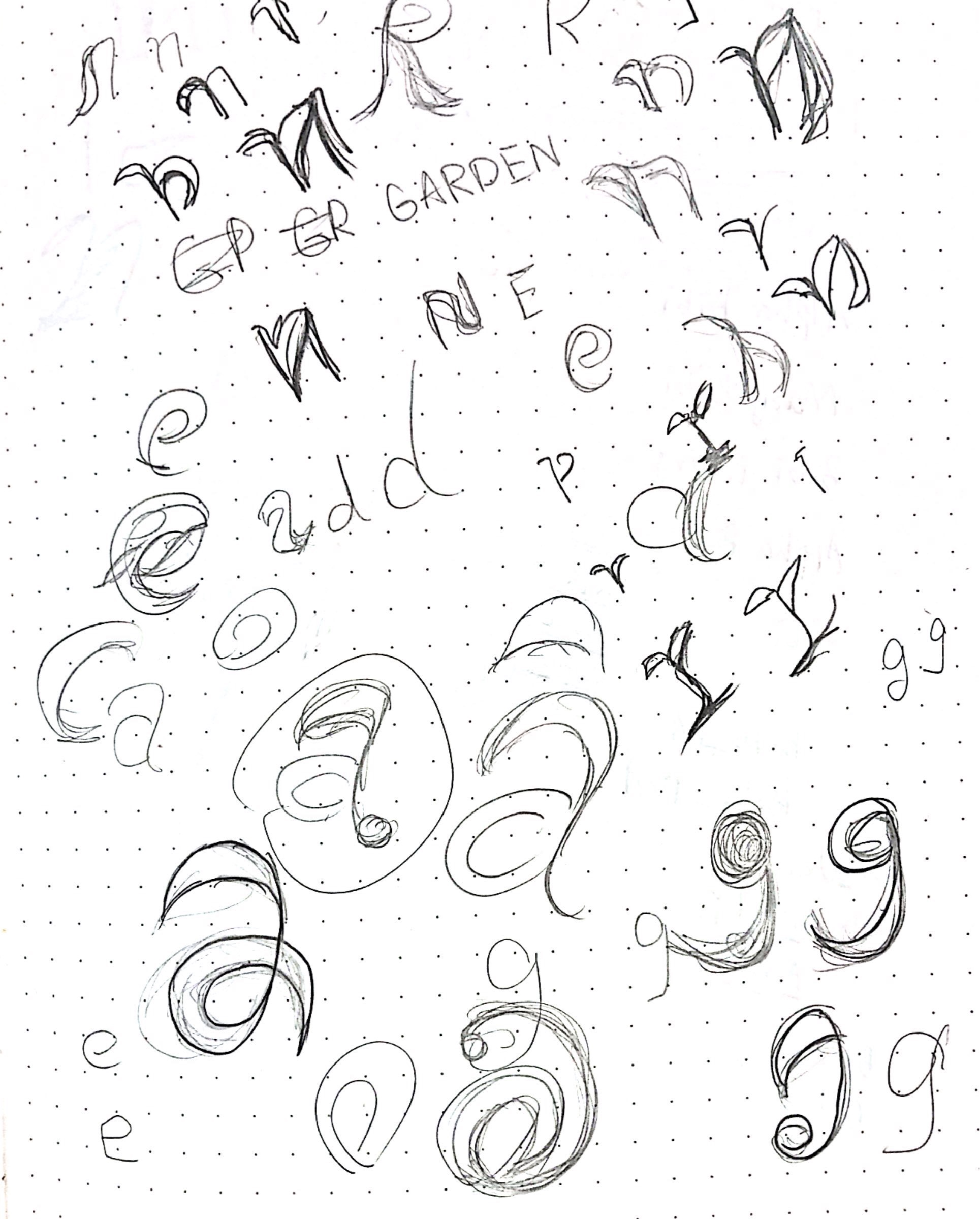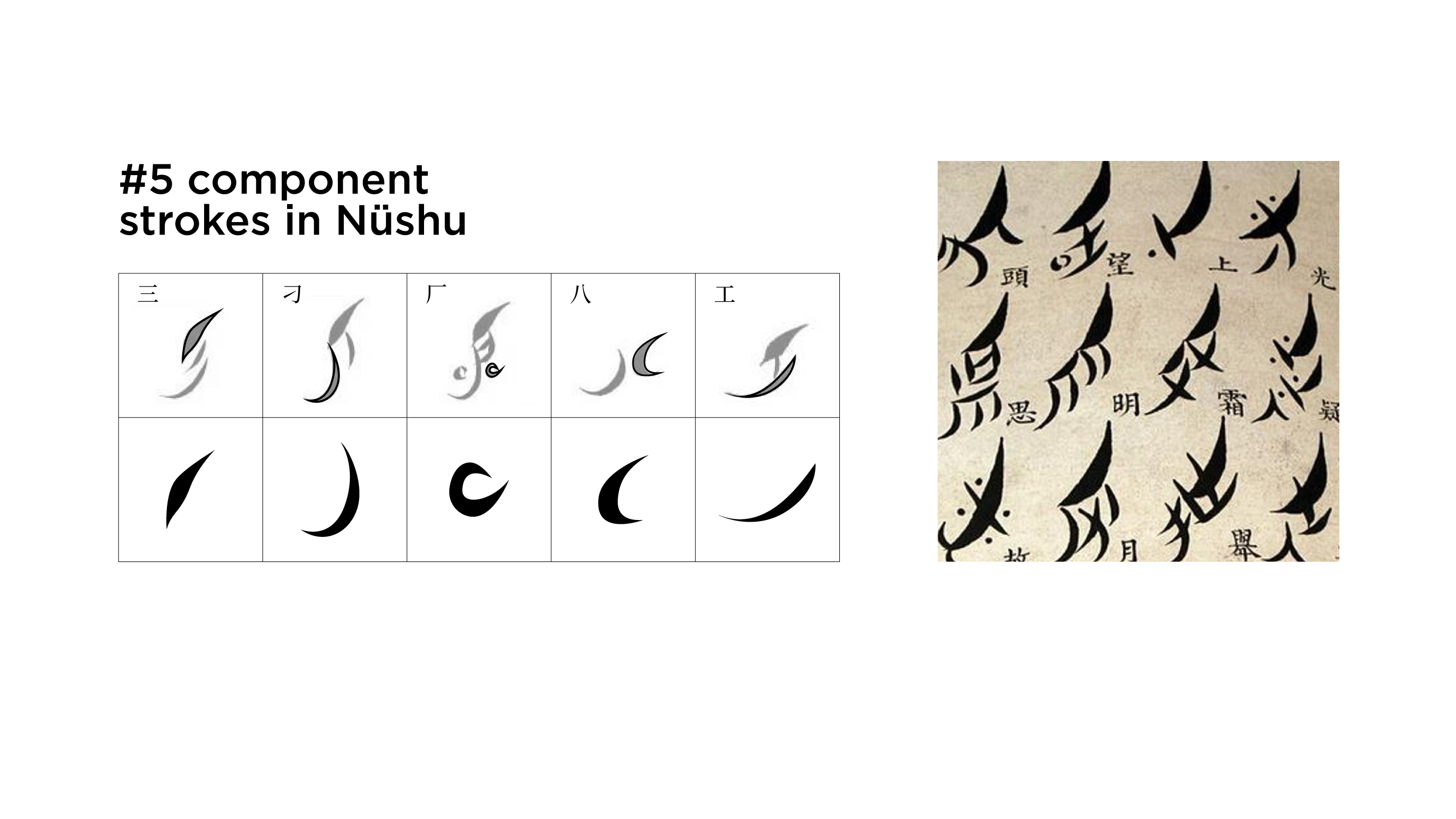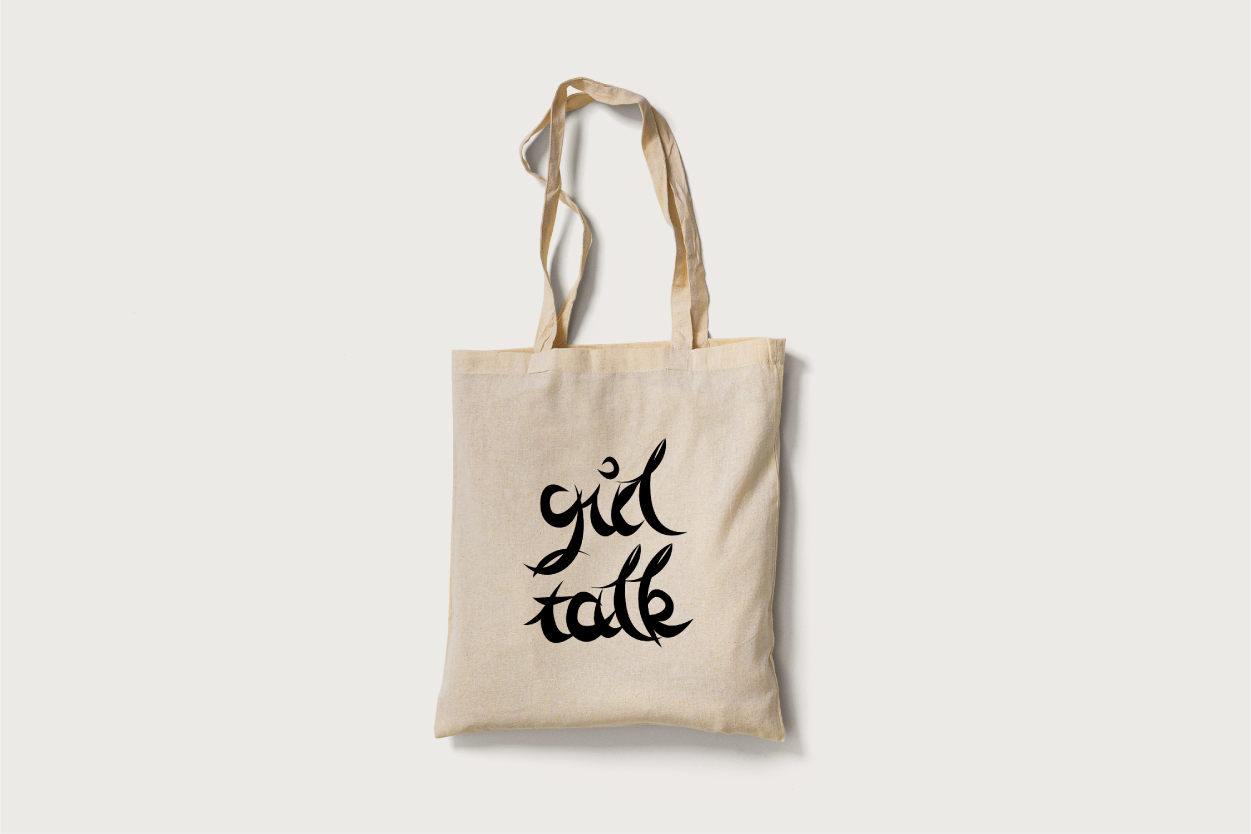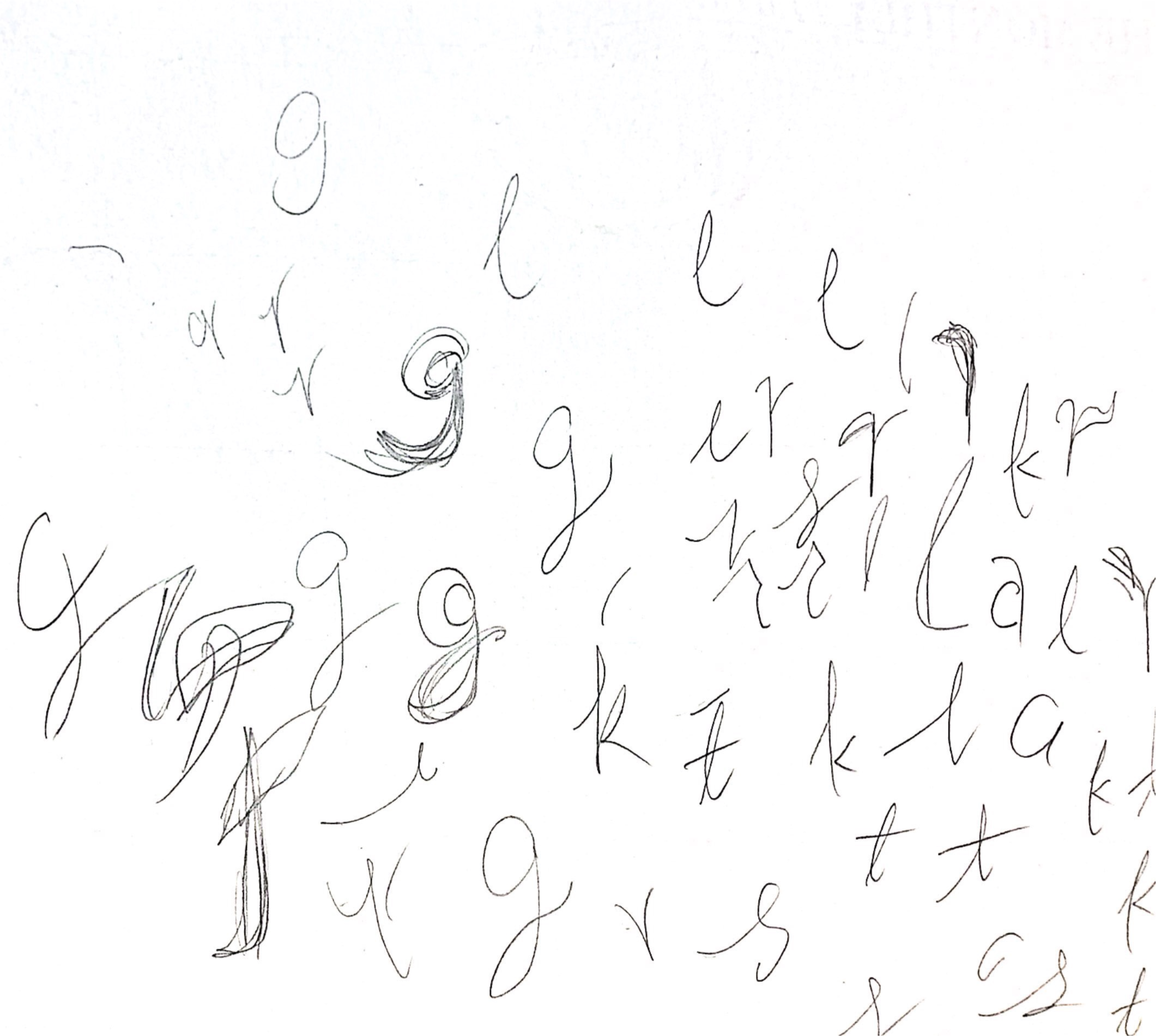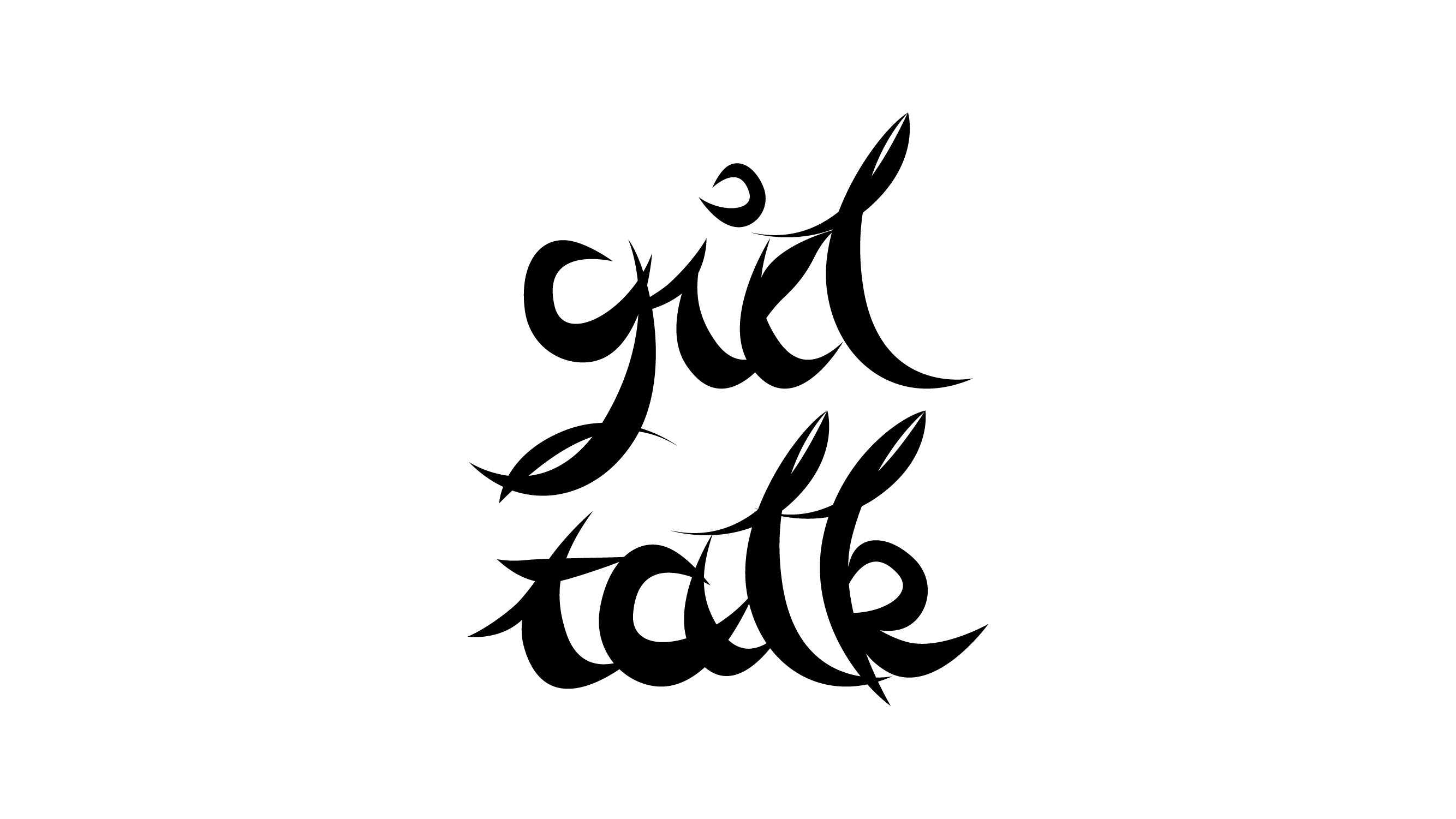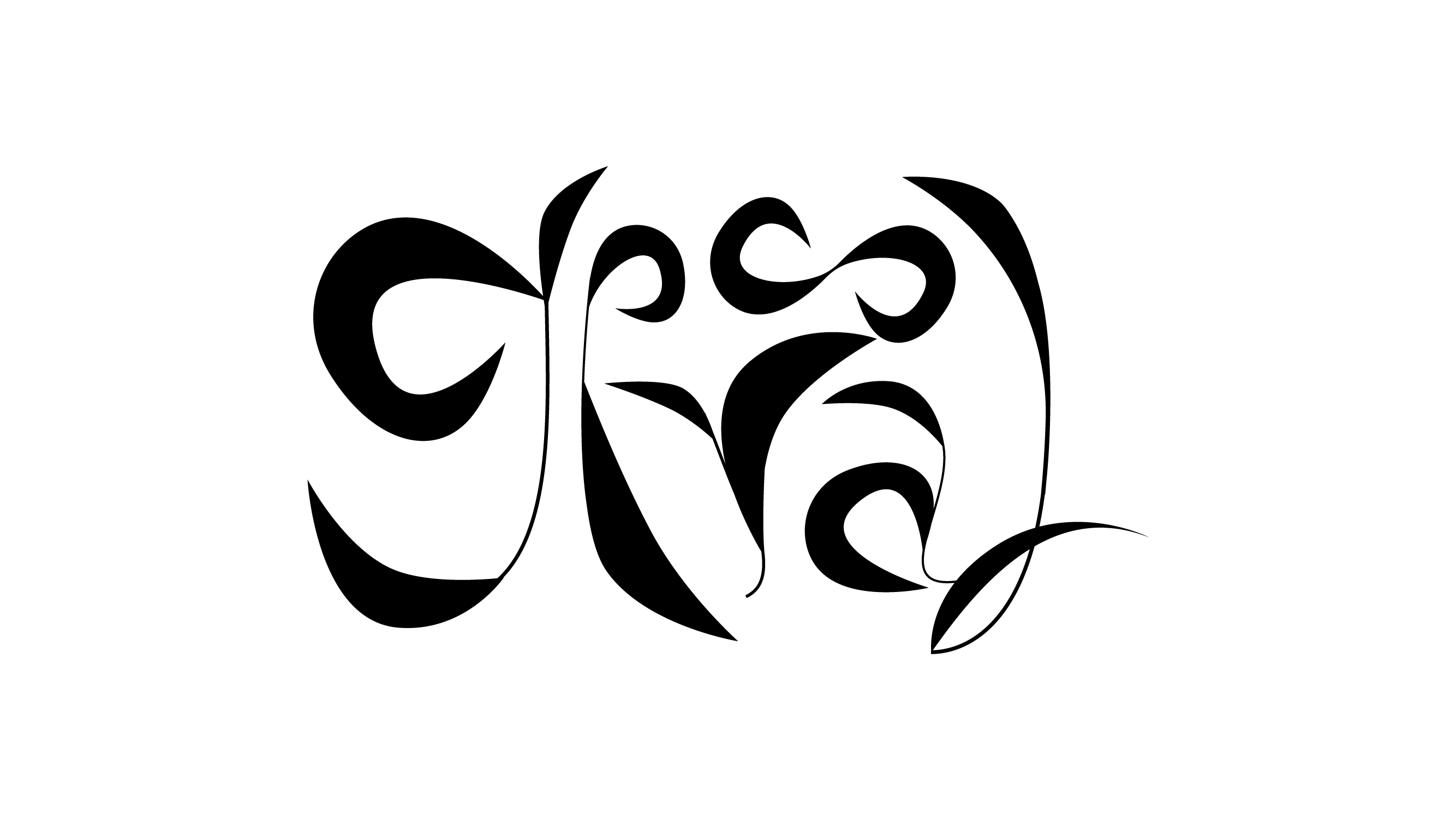
1st experiment: connect strokes with curve lines and look like a flower pattern, but it’s unreliable and lost its identity as a Chinese character.
2nd experiment: construct based on English cursive handwriting but disconnect every stroke like a Chinese character. It's reliable and still able to present a leaf pattern.